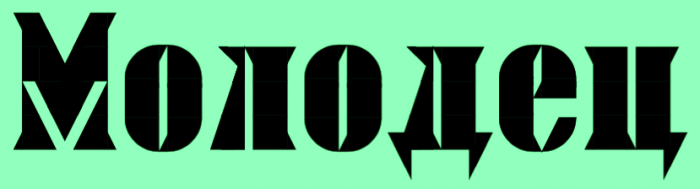
Including cyrillic (to native cyrillic users about my glyphs: help & comments are welcomed, please). Some kerning is in process. See also zendera smallcaps eYe/FS.
It's very nice to see your interest in Cyrillic. I really like the kratka over Й. The letters И and Й, unlike N, have a thin slanted font (broad nib). Д and Л have lost the slope of the left stroke, it can be cut off from the top(like K's leg) or made based on the shape of A. I would also add that д ц щ has too small descenders.
@Sychoff: Thanks a lot for your precious suggestions about the И, Й, Д, Л and the descenders. I've made some modiffications to improve them (I add a sample), let me know your opinion about their final look, please.
Cool. The Cyrillic looks a lot better than it did before.
@TH3_C0N-MAN: Thanks, glad you like it! The cyrillic alphabet is basically an unknown territory for me, and I need a little help to walk on it.
At first I did not write anything about б, but then I decided to try to make a more correct form of it's ascender, called the flame element here.
Amazing, I love the bold and sharp characters, especially the lowercase g.
zendera working in the real world. ❤︎